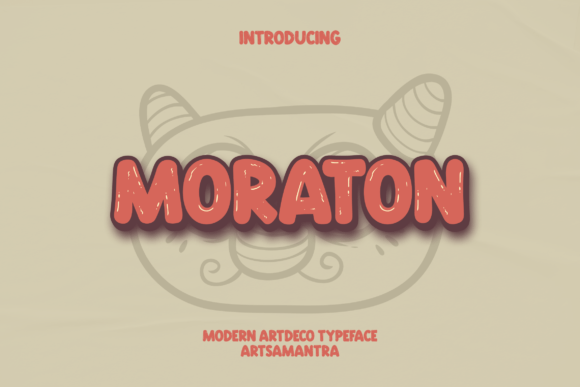
Immerse yourself in the whimsical world of Moraton, a decorative font that exudes charm and playfulness. Inspired by the effervescent nature of bubbles and the innocence of childhood handwriting, Moraton dances across your designs with an infectious energy that's sure to captivate and delight.
With its unique and instantly recognizable all-caps, Moraton is a true standout among decorative fonts. Its playful curves and cheerful vibe inject a sense of joy and wonder into any project, making it the perfect choice for branding, titles, posters, comics, signs, and more.
Picture this: your brand's logo, emblazoned in bold Moraton, leaps off the screen, demanding attention and leaving a lasting impression on your customers. Or, imagine your poster's headline, adorned with Moraton's whimsical charm, drawing passersby in with its irresistible allure. Moraton is the key to unlocking a world of endless creative possibilities.
But Moraton's magic extends far beyond its aesthetic appeal. This versatile font is a master of adaptability, seamlessly blending with a wide range of design styles. Whether you're aiming for a playful and lighthearted look or a more sophisticated and polished feel, Moraton effortlessly adapts to your vision, becoming an integral part of your creative expression.
So, why settle for ordinary when you can embrace the extraordinary? Dive into the world of Moraton today and let your imagination run wild. Experience the joy of creating designs that radiate happiness, inspire smiles, and leave an indelible mark on your audience. Moraton is more than just a font; it's an invitation to embark on a creative adventure where anything is possible.